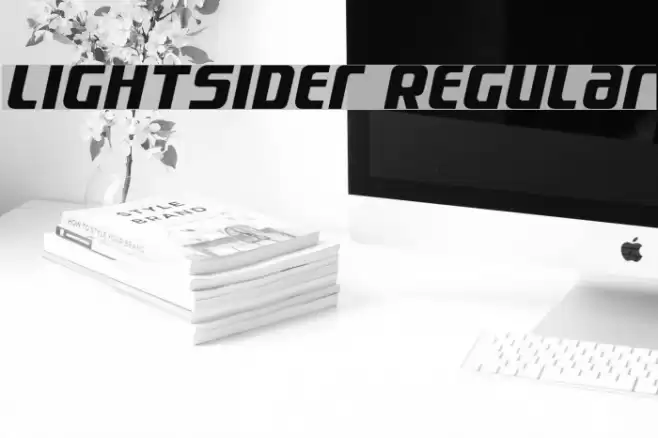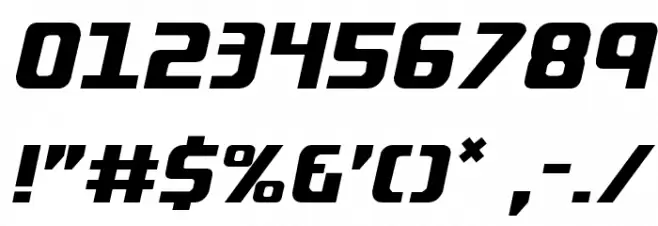
Lightsider Regular Font
Lightsider Regular Description
This font features a modern and dynamic design with a strong, angular appearance. The characters are slightly slanted, giving a sense of movement and energy. The strokes are bold and consistent, with a medium contrast that enhances readability while maintaining a sleek look. The overall style is futuristic, making it suitable for projects that require a contemporary and cutting-edge aesthetic. The spacing between characters is normal, ensuring clarity and legibility across various applications.
A modern, dynamic font with bold, angular characters and a futuristic style from Uncategorized fonts.
- Proposed Projects: Ideal for technology branding, sports team logos, video game titles, and sci-fi themed designs.